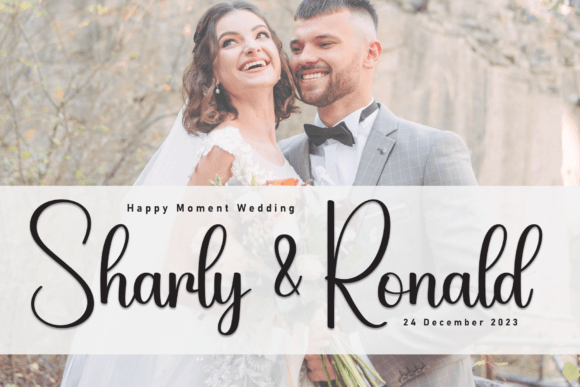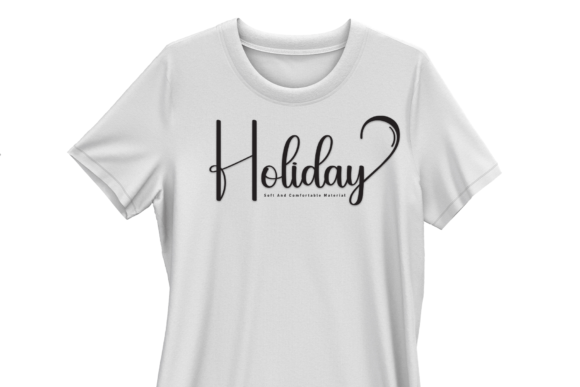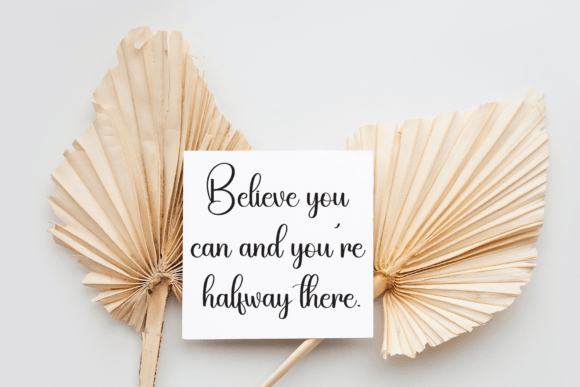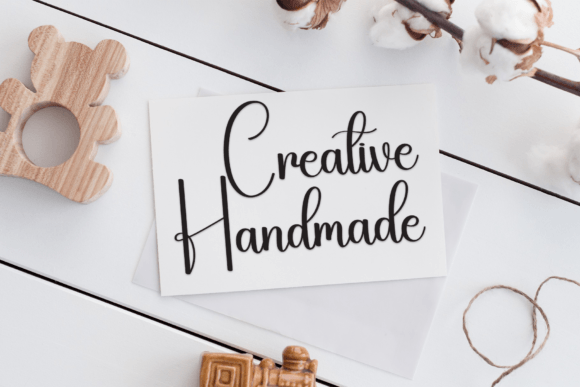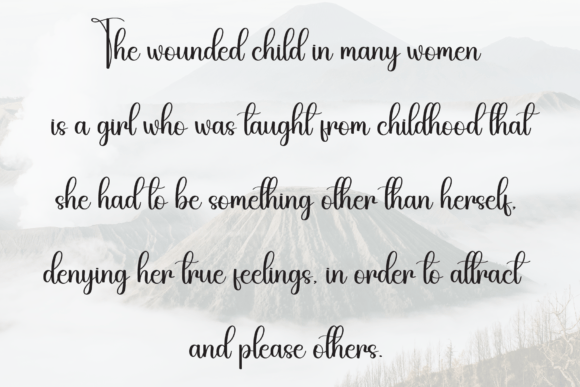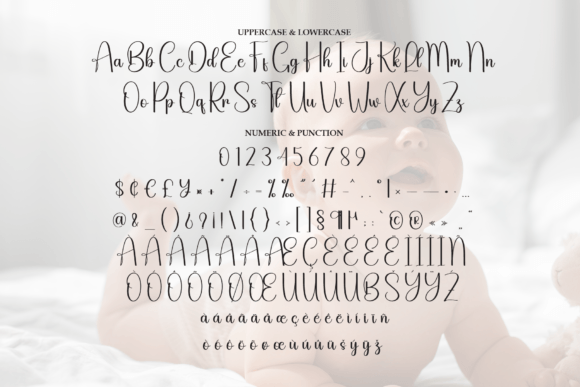
Baby Font: The Ultimate Choice for Elegant and Modern Designs
In the world of typography, a well-crafted font can elevate a design project from ordinary to extraordinary. For those seeking a font that exudes elegance, sophistication, and a touch of modernity, Baby Font is an exceptional choice. This exquisite handwritten font has been masterfully designed to capture the hearts of designers and crafters alike, making it a true favorite in the realm of typography.
Classy Calligraphic Influences
Baby Font boasts classy calligraphic influences that are reminiscent of traditional handwriting. Its fluid strokes and cursive connections evoke a sense of refinement and luxury, perfect for designs that require a high level of sophistication. Whether you’re working on a branding project, wedding invitation, or packaging design, Baby Font’s elegant feel will undoubtedly leave a lasting impression.
Contemporary and Fresh
While Baby Font maintains its classic calligraphic roots, it also feels surprisingly contemporary and fresh. The font’s subtle nuances and carefully crafted letterforms ensure that it remains relevant in today’s fast-paced design landscape. This versatility makes Baby Font an excellent choice for designers who want to create modern, yet timeless designs that resonate with their audience.
Baby Font’s adaptability and charm make it suitable for a wide range of design projects, including:
- Branding and Logo Design: Create a lasting impression with Baby Font’s elegant and sophisticated feel.
- Wedding and Event Invitations: Add a touch of luxury and romance to your invitations and stationery.
- Packaging Design: Elevate your product packaging with a font that exudes high-end quality.
- Digital and Print Media: Use Baby Font in your digital and print materials, such as brochures, magazines, and social media graphics.
- Unique and Exclusive: Baby Font’s distinctive style ensures that your designs stand out from the crowd.
- Elegant and Sophisticated: This font’s refined feel is perfect for high-end designs and luxury brands.
- Versatile and Adaptable: Baby Font can be used in a variety of design projects, from digital media to print materials.
- Easy to Read and Understand: The font’s clear and legible letterforms ensure that your message is conveyed effectively.